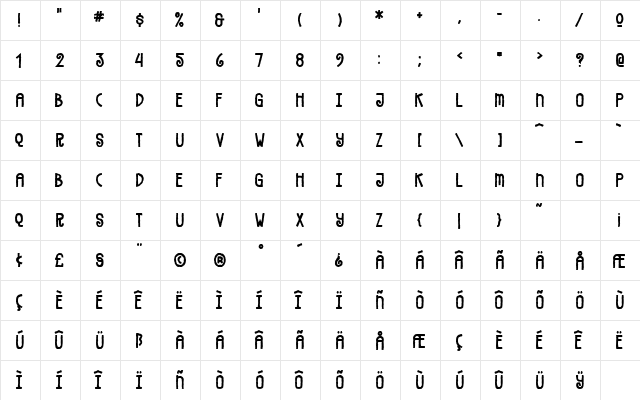
VeryMerry Regular
Design Context for VeryMerry Typeface
VeryMerry is a composed and adaptable typeface that performs quietly and consistently across a wide range of design contexts.